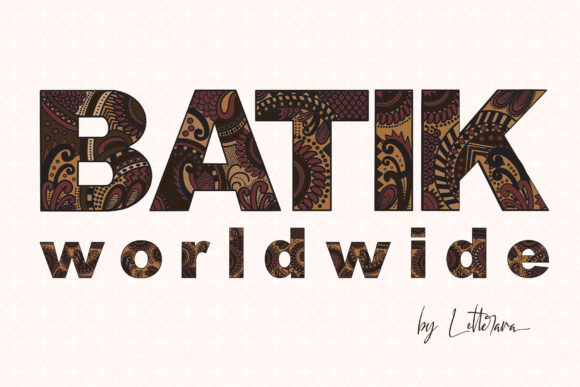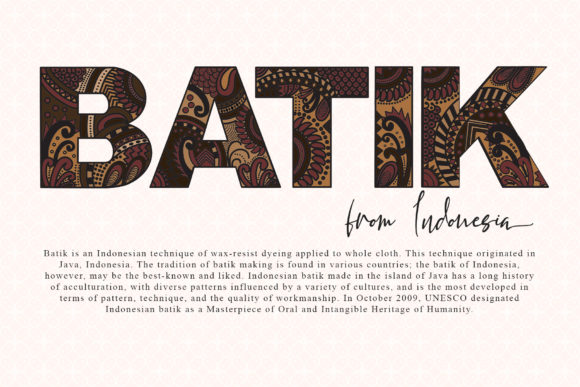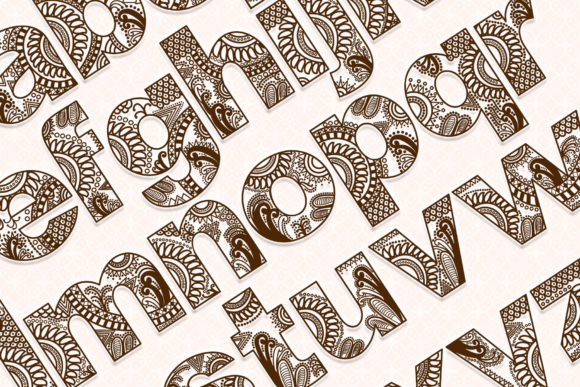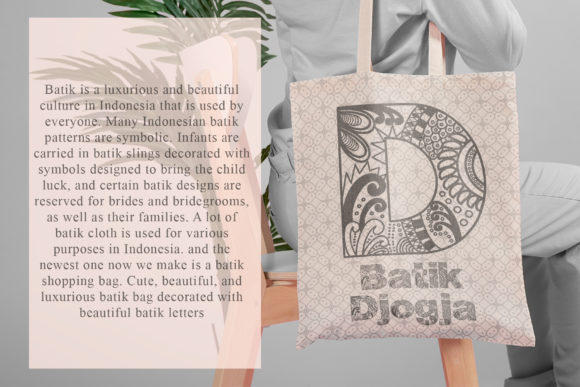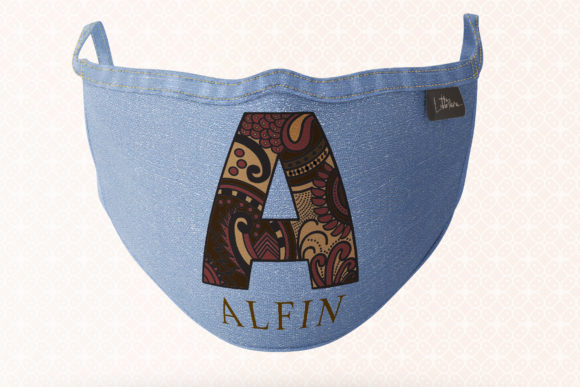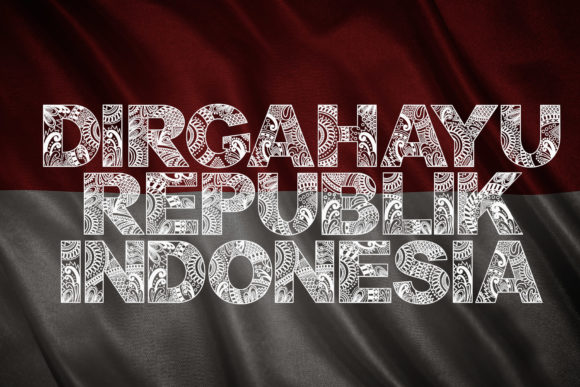
Batik Worldwide Font: Elevate Your Designs with a Simple yet Impactful Display Font
In the world of design, typography plays a crucial role in conveying messages, expressing creativity, and capturing attention. Among the numerous fonts available, Batik Worldwide stands out as a simple yet chunky lettered display font that can instantly elevate your designs. In this article, we’ll explore the features, benefits, and uses of Batik Worldwide, and how it can make your creative ideas stand out.
What is Batik Worldwide Font?
Batik Worldwide is a display font designed to make a statement. Its chunky letters and simple design make it perfect for headlines, titles, and short phrases. The font’s clean and bold lines ensure that your text is easily readable, even at larger sizes. Whether you’re working on a logo, poster, or social media graphic, Batik Worldwide is an excellent choice to add some visual impact.
Key Features of Batik Worldwide Font
- Simple and Chunky Design: Batik Worldwide’s letters are designed to be bold and eye-catching, making it perfect for display purposes.
- High Readability: The font’s clean lines and clear lettering ensure that your text is easily readable, even at larger sizes.
- Versatile: Batik Worldwide can be used for a wide range of design projects, from logos and posters to social media graphics and more.
- Easily Customizable: The font’s simplicity makes it easy to customize and pair with other fonts to create a unique look.
Benefits of Using Batik Worldwide Font
So, why choose Batik Worldwide for your design projects? Here are some benefits of using this font:
- Instant Visual Impact: Batik Worldwide’s chunky design ensures that your text grabs attention and makes a lasting impression.
- Easy to Pair with Other Fonts: The font’s simplicity makes it easy to pair with other fonts, allowing you to create a unique and harmonious design.
- Time-Saving: With Batik Worldwide, you can quickly create professional-looking designs without spending hours on typography.
- Perfect for Beginners and Professionals: Whether you’re a seasoned designer or just starting out, Batik Worldwide is an excellent choice for adding some visual impact to your designs.
How to Use Batik Worldwide Font in Your Designs
Now that we’ve explored the features and benefits of Batik Worldwide, let’s discuss how to incorporate it into your design workflow:
- Logos and Branding: Use Batik Worldwide as a bold and eye-catching font for your logo or brand identity.
- Posters and Flyers: Add some visual impact to your posters and flyers with Batik Worldwide’s chunky design.
- Social Media Graphics: Use Batik Worldwide to create attention-grabbing social media graphics that stand out in crowded feeds.
- Packaging Design: Add a bold and modern touch to your packaging design with Batik Worldwide.
Tips for Getting the Most Out of Batik Worldwide Font
To get the most out of Batik Worldwide, here are some tips to keep in mind:
- Experiment with Colors: Batik Worldwide looks great in bold and bright colors, so don’t be afraid to experiment and find the perfect hue for your design.
- Play with Size: The font’s chunky design makes it perfect for large sizes, so don’t be afraid to go big and make a statement.
- Pair with Other Fonts: Batik Worldwide pairs well with a wide range of fonts, so experiment with different combinations to find the perfect look for your design.
In conclusion, Batik Worldwide is a simple yet impactful display font that can elevate your designs and make them stand out. With its chunky design, high readability, and versatility, it’s perfect for a wide range of design projects. Whether you’re a seasoned designer or just starting out, Batik Worldwide is an excellent choice for adding some visual impact to your designs. So why not give it a try and see how it can take your designs to the next level?